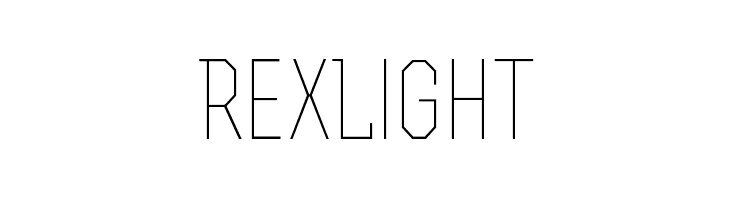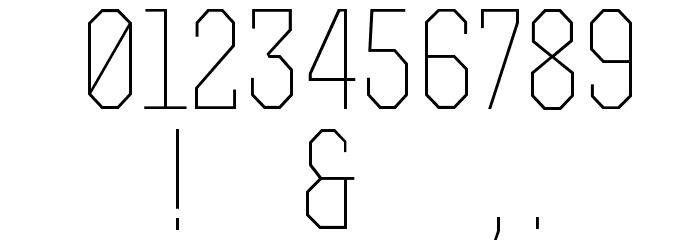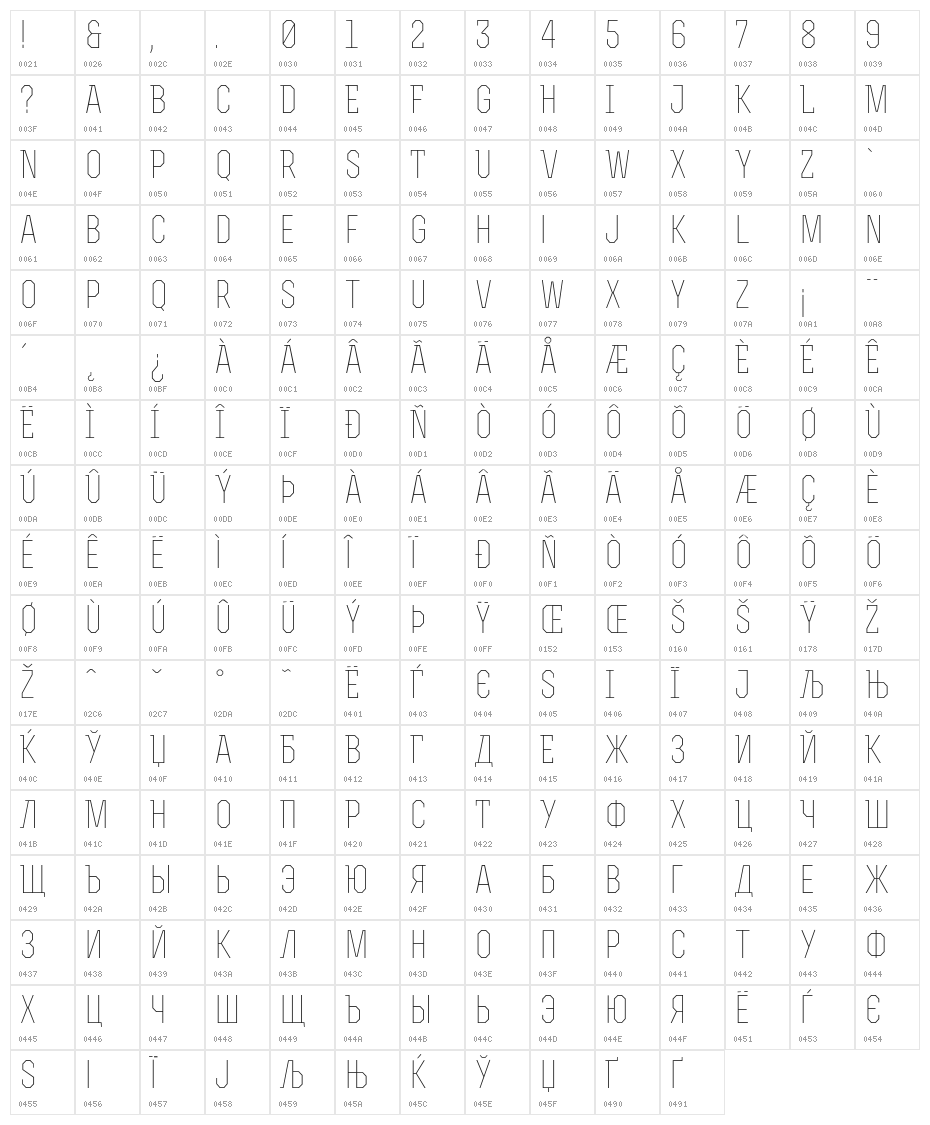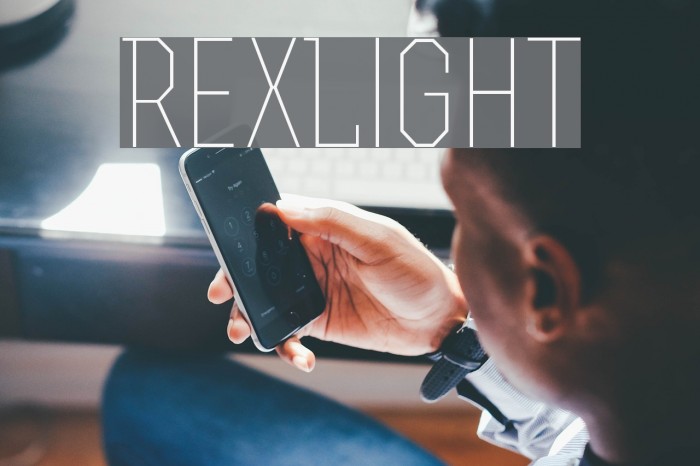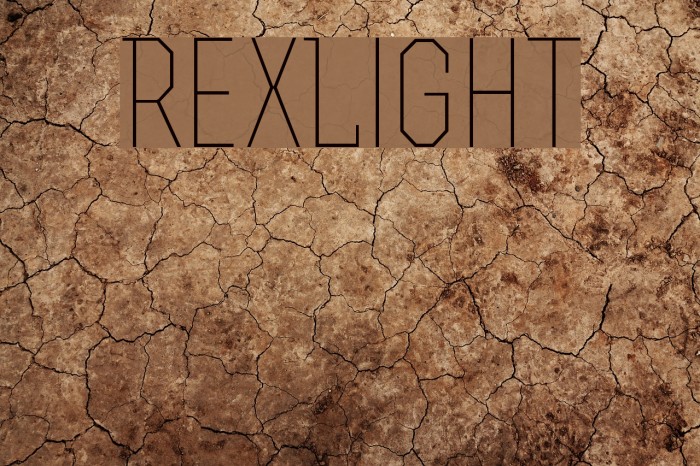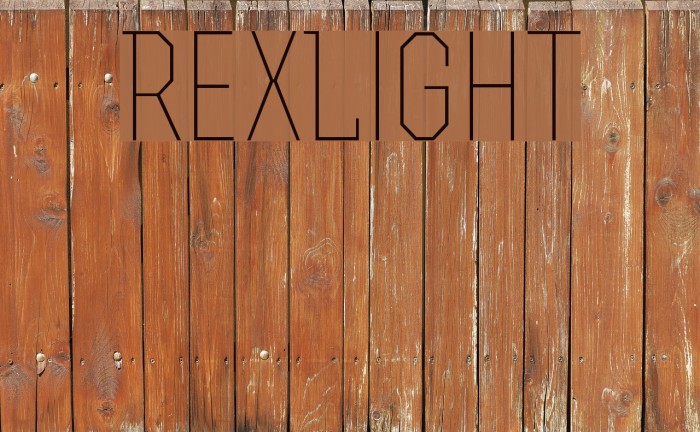
RexLight Font
RexLight Description
This font features a geometric and angular design, characterized by its octagonal shapes and clean lines. The uppercase and lowercase letters maintain a consistent structure, giving it a uniform appearance. The numbers and special characters follow the same design principles, ensuring cohesion across all elements. The font's unique style is both modern and industrial, making it stand out with its distinctive, sharp edges. Its simplicity and clarity make it highly legible, even at smaller sizes, while the geometric forms add a touch of sophistication and modernity.
| Proposed Projects | Ideal for branding, logos, posters, and modern web design projects. |